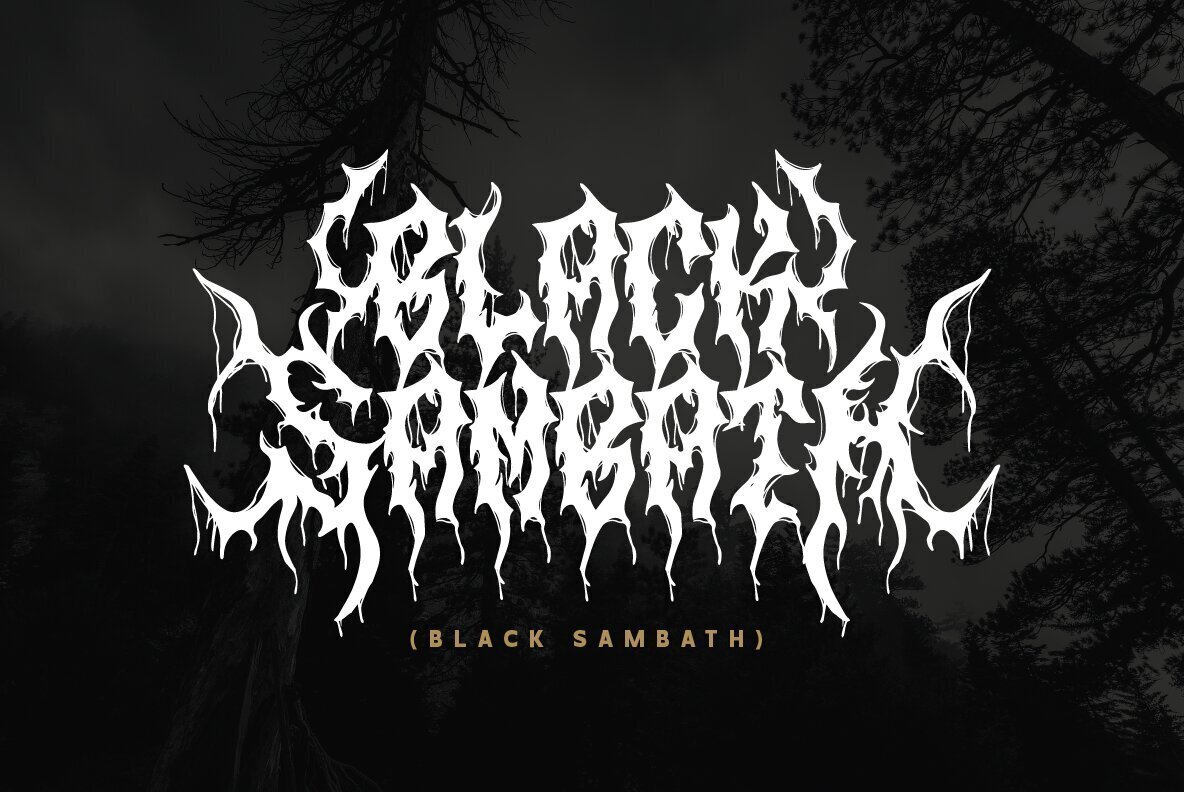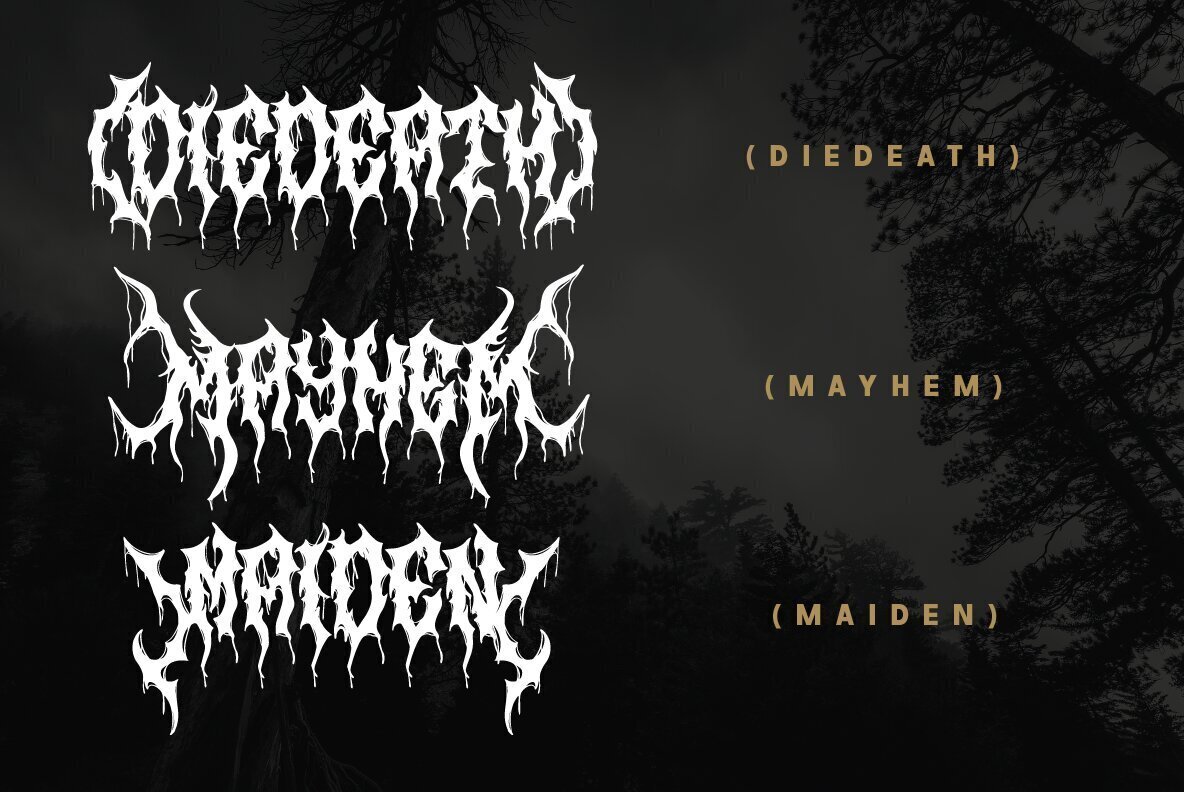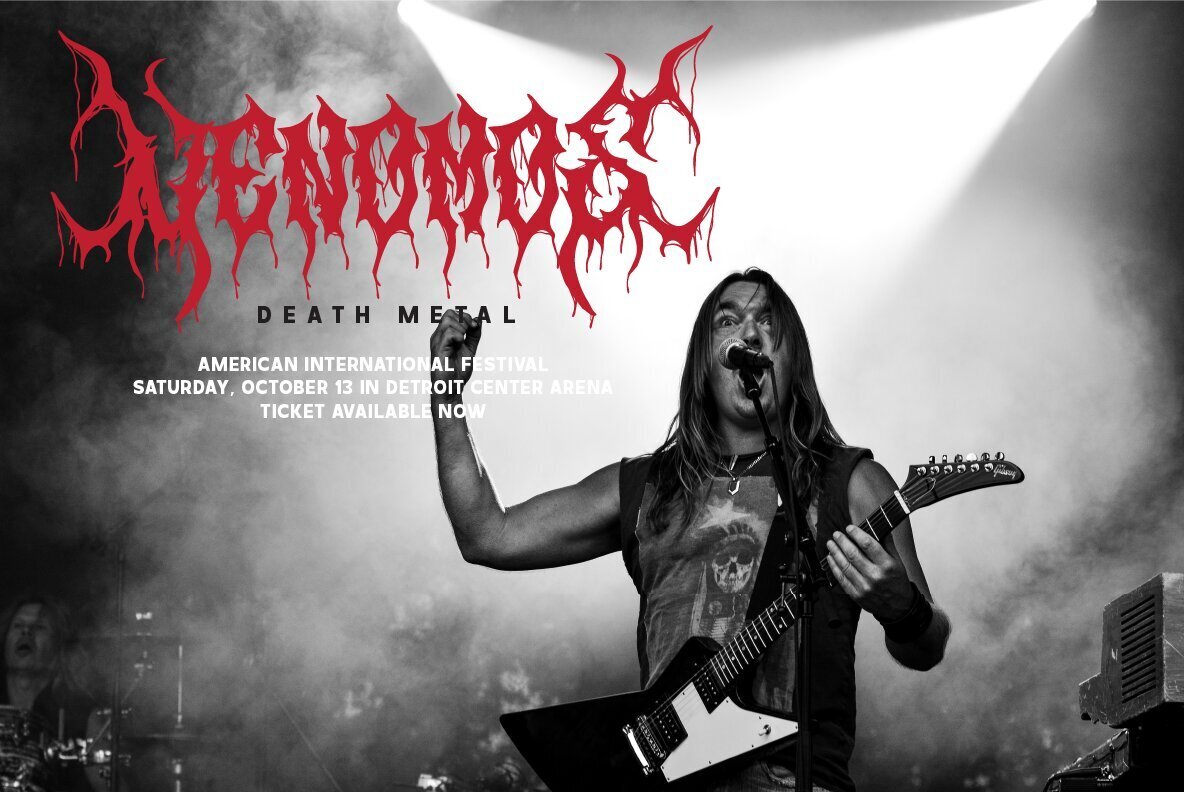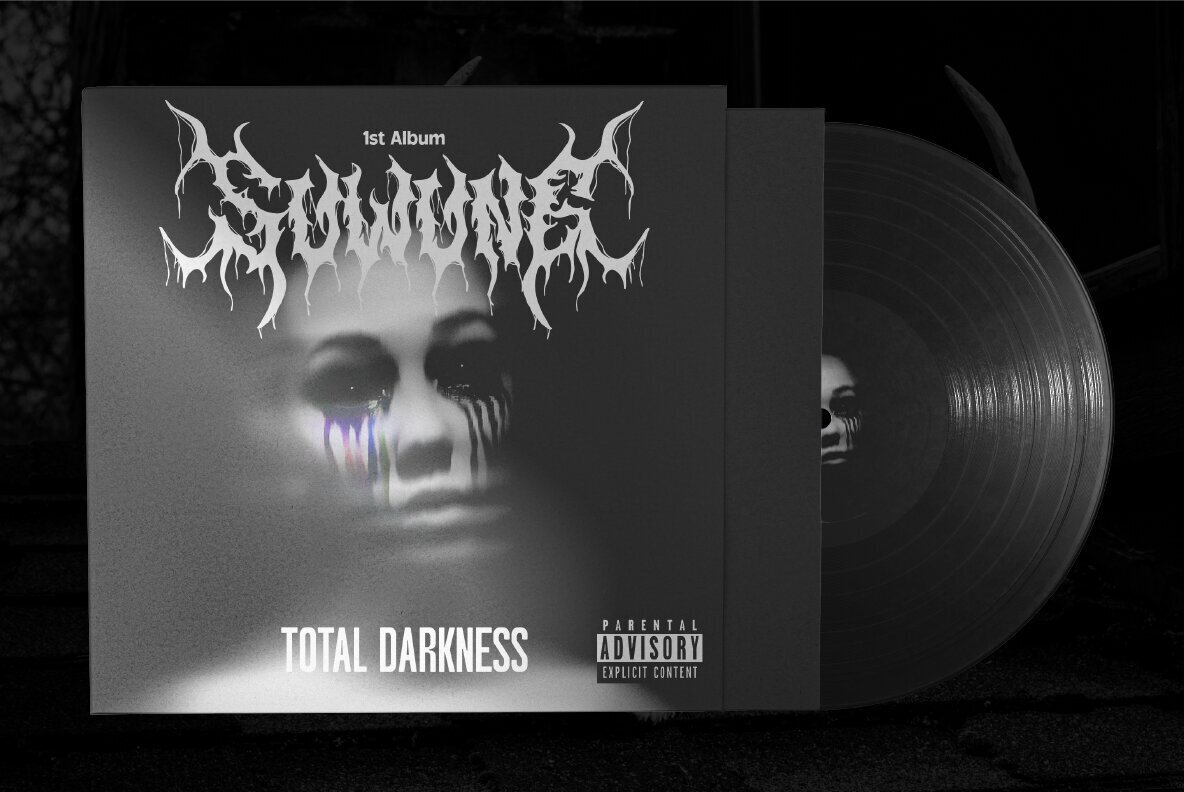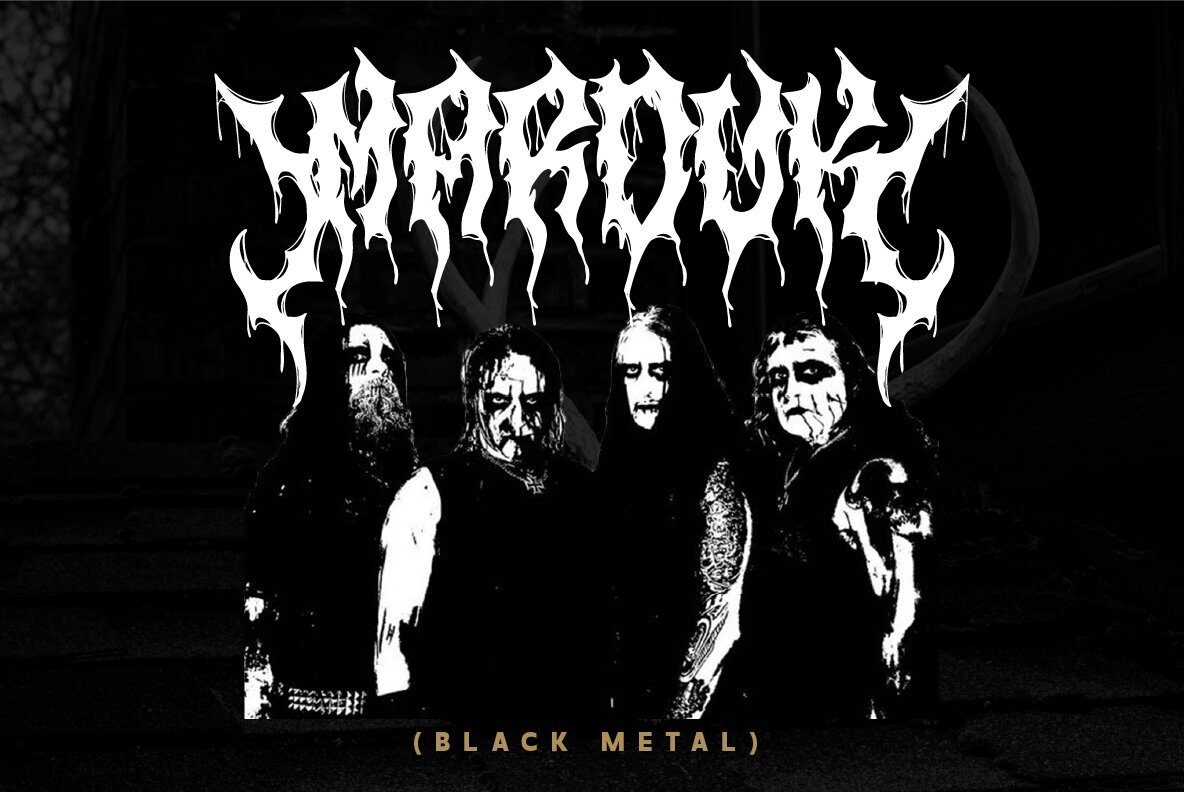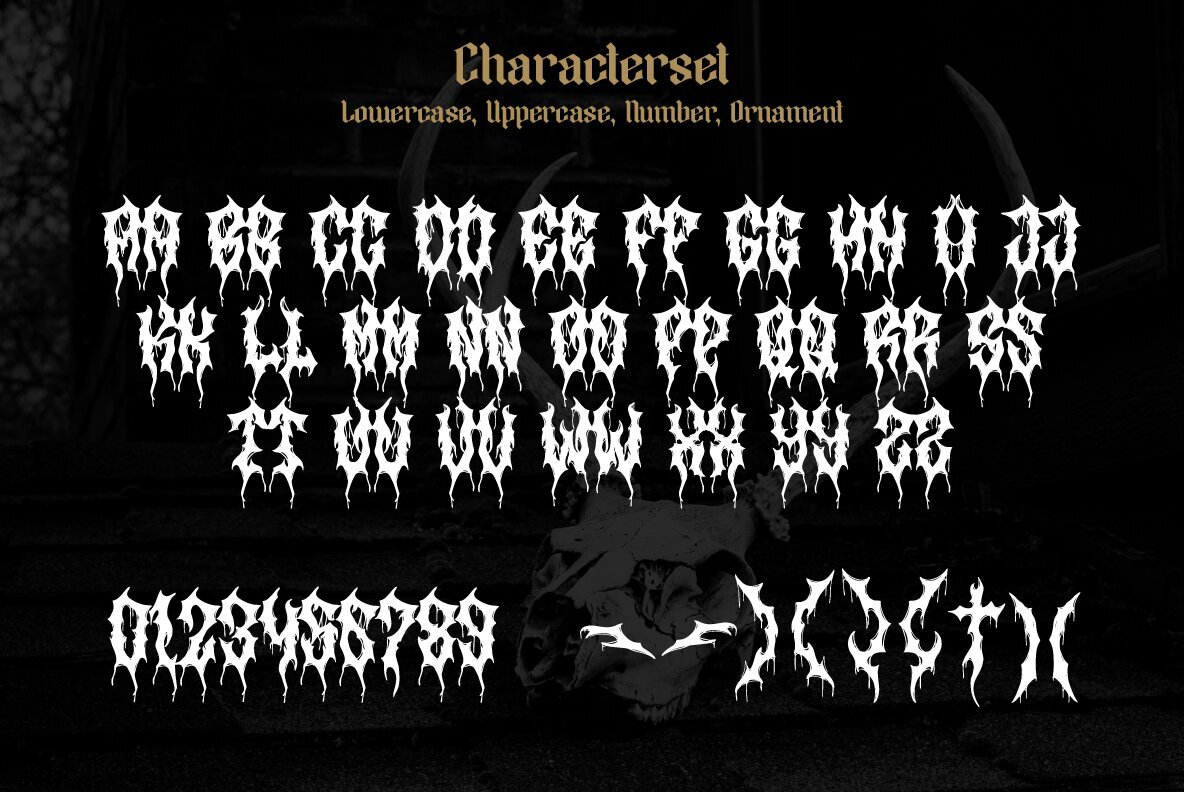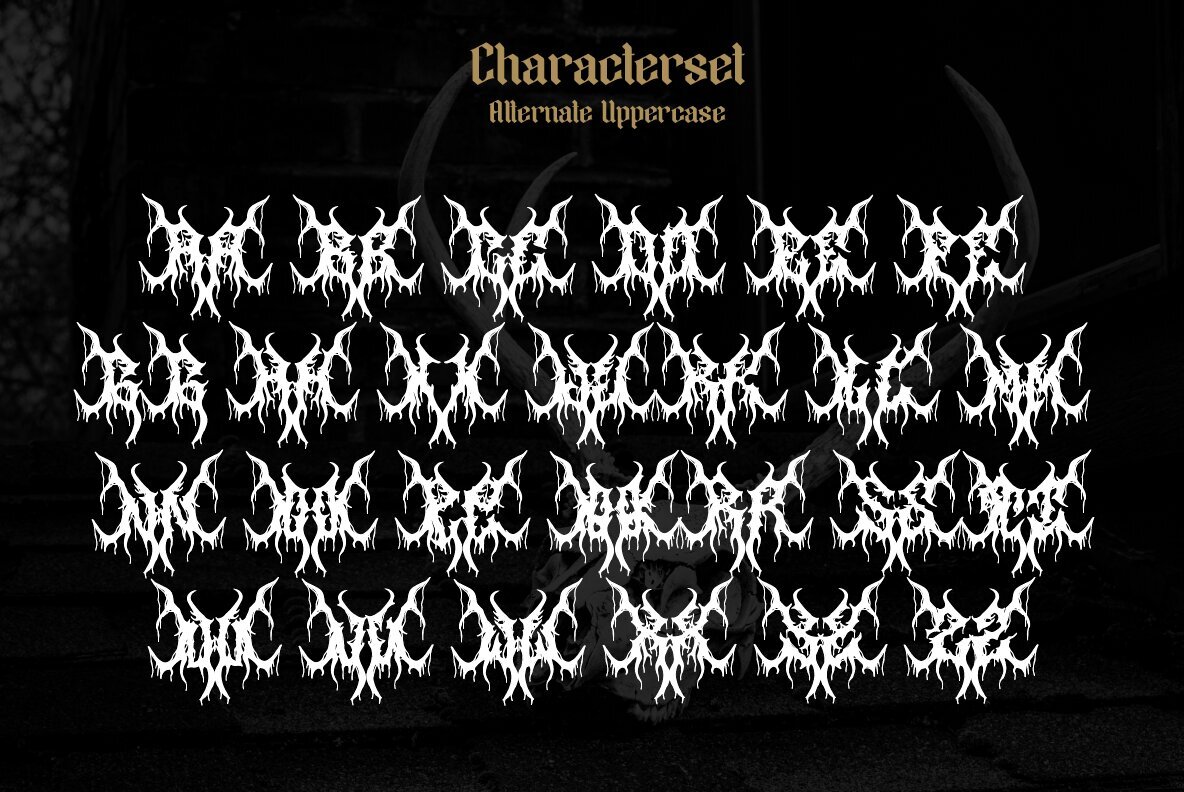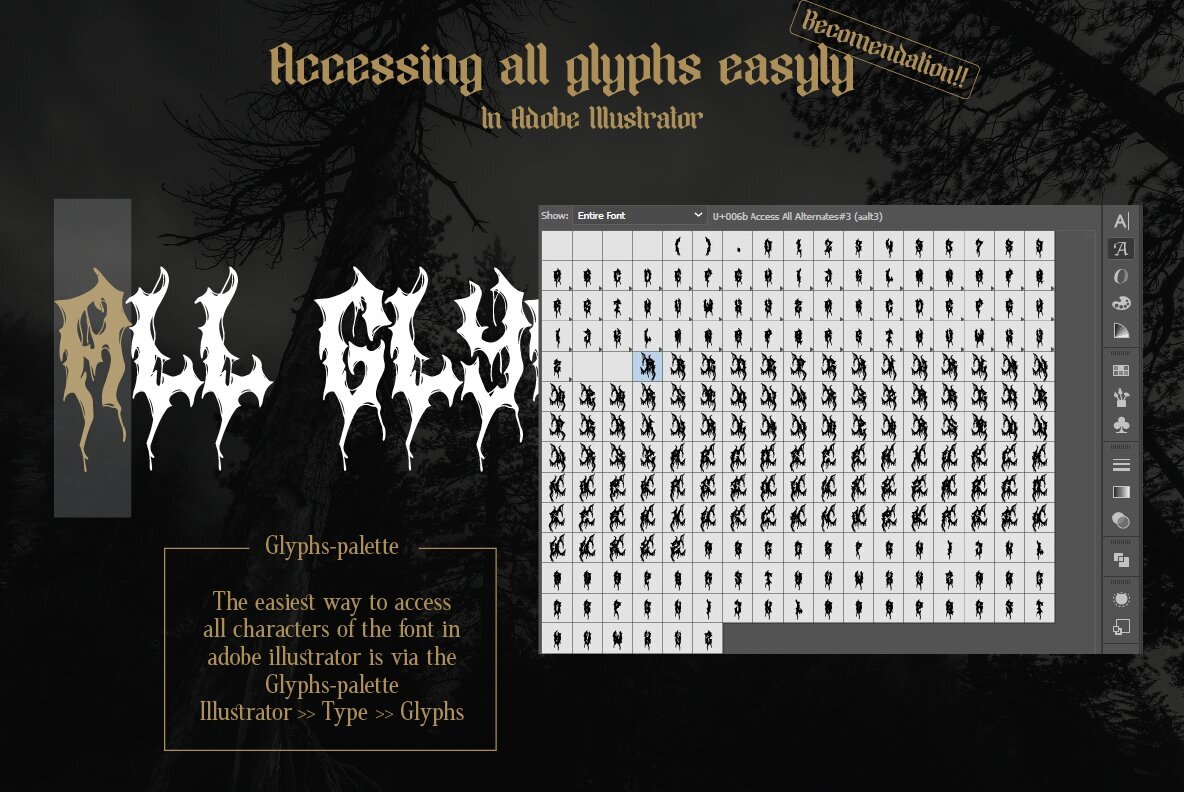
Rusuck Font
For creatives aiming to capture the raw essence of underground music, Rusuck by Rony Rizki Jaya offers a dynamic solution. Tailored specifically for those seeking to design a standout logo or graphic for a death or black metal band, this font imbues projects with a distinctive life through its unique alternate front and ending letters. Its character set is purposefully minimal, including essential symbols and signs familiar to the extreme music genre, such as pentagram drops, roots, and spikes.Rusuck: A Dynamic Font for the Underground Music Scene